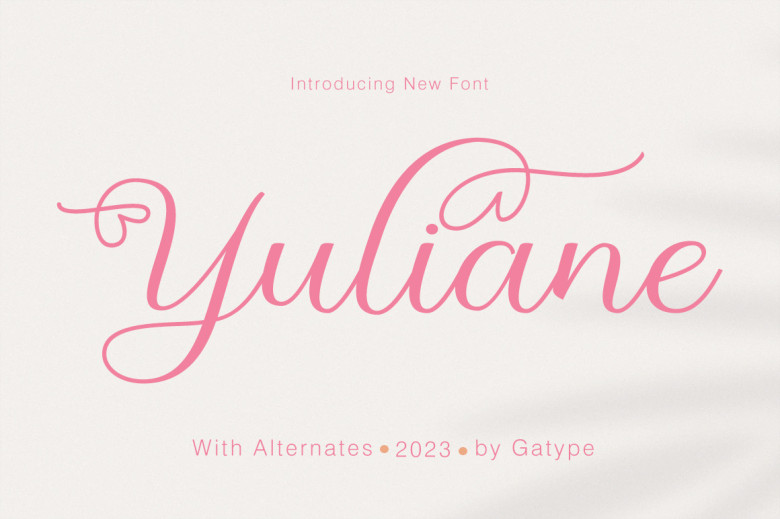
Yuliane Font
Yuliane can be described as an elegant Calligraphy Script font resembling natural handwritten strokes. This stunning script font will add timeless modern style and contemporary clean design to your designs, providing them with timeless modern aesthetic.
Yuliane makes for an excellent design font when seeking an elegant modern aesthetic without appearing “too old-fashioned”.
Yuliane Calligraphy Script Font